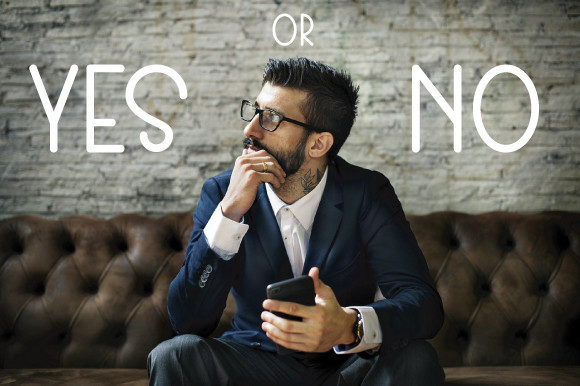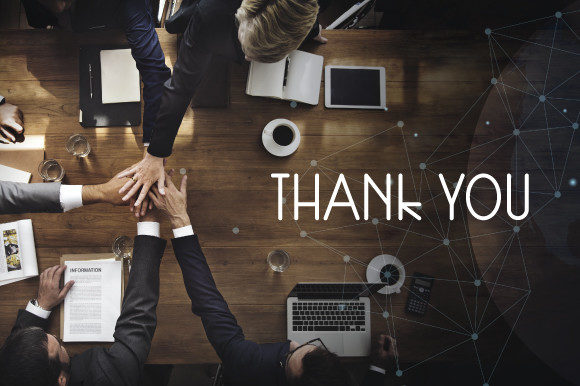
Introduction to Sleq Font
Have you ever stared at a blank canvas, waiting for inspiration to strike? That’s exactly where I was when I stumbled upon the Sleq Font. It was as if the universe was nudging me to explore this clean and modern sans serif font. As I began to play around with it, I realized that Sleq Font was more than just a design tool – it was a game-changer.
With Sleq Font, designers can take their creative projects to the next level. Its versatility and high quality make it an ideal choice for a wide range of projects, from website designs to branding materials. Plus, with a transparent background, it’s easy to match it with any color scheme. And the best part? It’s available for free download, making it an invaluable resource for designers.
Key Features of Sleq Font
- Sleq Font is a versatile font that supports a transparent background, allowing for seamless integration into any design.
- Includes a range of characters, including uppercase and lowercase letters, numbers, and punctuation marks, making it suitable for a variety of creative projects.
- The Sleq Font is a unique and creative design resource, perfect for adding a touch of elegance and sophistication to any project.
- Perfect for designers, artists, and creatives working on various projects, including graphic design, typography, and digital art.
Honest Review: Sleq Font
I recently stumbled upon the Sleq Font, and I must say it’s been a game-changer for my creative projects. With its sleek and modern design, it’s perfect for anyone looking to give their design a touch of sophistication.
- ✨ High-quality font with a wide range of styles and weights
- ✨ Suitable for a variety of design applications, from logos to brochures
- ✨ Transparent background option allows for seamless integration with any design
- ⚠️ Limited character set, which may not be ideal for complex designs
- ⚠️ May not be suitable for very large or bold text
Overall, I’m thoroughly impressed with the Sleq Font. It’s a high-quality design resource that’s perfect for anyone looking to elevate their creative project. While it may have some limitations, the benefits far outweigh the drawbacks. I highly recommend giving it a try!
The Sleq Font is a high-quality design resource available for free download. Its transparent background makes it perfect for creative projects that require a unique touch.
Some common use cases for the Sleq Font include:
- Designing logos and branding materials.
- Creating social media graphics and advertisements.
- Designing infographics and data visualizations.